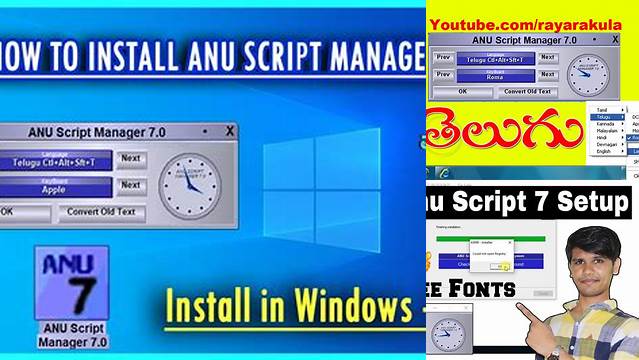
H2: Why Choose Anu Fonts 7.0?
So, why should you even bother with Anu Fonts 7.0 free download for Windows 10? Well, there are a few compelling reasons. First off, Anu Fonts offer a unique aesthetic that can really make your text stand out. They're not your run-of-the-mill fonts; they often have a distinctive character and style. This can be super useful for anything from creating eye-catching presentations to designing logos or even just making your emails a little more visually interesting. And when you're looking for something different, Anu Fonts 7.0 free download for Windows 10 has a lot to offer. The fonts are typically designed with specific purposes in mind, which means they often include a complete set of symbols, accents, and special characters that give you a lot of options. Another great thing about these fonts is that they're designed to be versatile. They work well across a range of applications, from simple word processors to more complex design software. This means you can use them in a variety of projects. For the designers out there, this means more freedom. It gives you the flexibility to experiment with different looks and styles without having to switch between a bunch of different font sets. Whether you're a designer, a writer, or someone who just wants to make their computer look a little cooler, Anu Fonts 7.0 free download for Windows 10 is a great choice. They are designed to be compatible with a lot of software.
Moreover, using unique fonts can boost your brand's identity or the personality of your work. It can give your materials a professional and personalized feel. This is especially true for businesses or individuals who are looking to build a strong visual presence. And, of course, the fact that you can get Anu Fonts 7.0 free download for Windows 10 is a massive plus. Who doesn't love free stuff, right? But it's not just about saving money. It's about having access to a wide range of high-quality fonts without having to pay a premium. Remember, the right font can totally transform your content, making it more engaging and memorable. That's why choosing the right fonts is so critical. It's like choosing the right clothes to make you shine. Now, let's get you set up with those fonts!
H3: Exploring the Aesthetics of Anu Fonts 7.0
When we're talking about Anu Fonts 7.0 free download for Windows 10, the aesthetic possibilities are really where it's at. The fonts are designed to make your text stand out, and they do it well. They come in various styles, from elegant scripts to bold, modern designs. You will surely find something that will fit your needs. These fonts often have unique details and characteristics that give your text a special touch. Maybe you're looking for a font for a fancy invitation or maybe you are looking for a more playful look. With Anu Fonts 7.0 free download for Windows 10, there is a font for every occasion. These fonts offer a wide range of unique and stylish choices. Their versatility ensures they'll fit with a range of projects. These are great options for anyone looking to add some flair to their work. They're perfect for anything from simple text documents to more complex design projects. It doesn't matter if you are a professional graphic designer or someone who just likes playing around with fonts for fun. You will surely find the perfect font.
Also, Anu Fonts often come with a complete set of symbols, accents, and special characters, which means more options to make your text stand out. This level of detail is what makes them stand out and gives you more creative freedom. These fonts are not just about how they look; they're about how they make your text feel. A great font can evoke emotions and communicate a specific tone. The right font can turn a simple piece of text into something captivating. So whether you are making a presentation, designing a logo, or just trying to make your work look more interesting, Anu Fonts 7.0 free download for Windows 10 offers a great range of design options. Their unique design and style mean you can create visually stunning materials. These fonts are a great asset for any project.